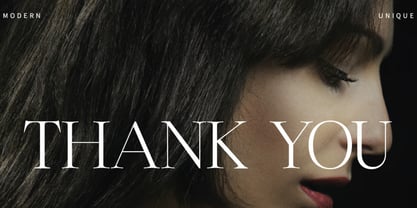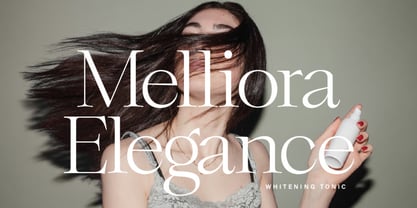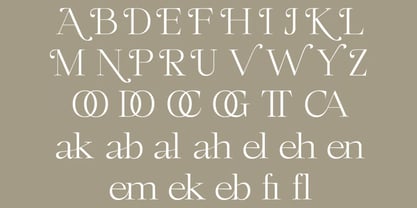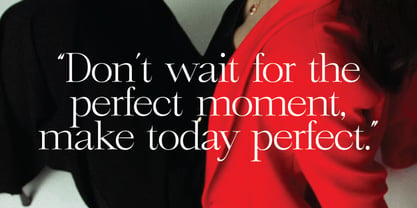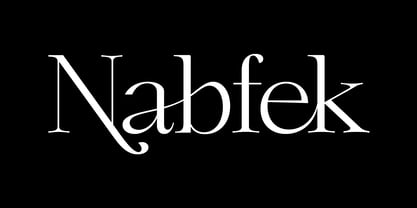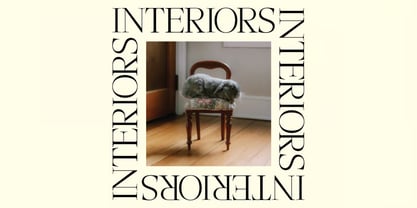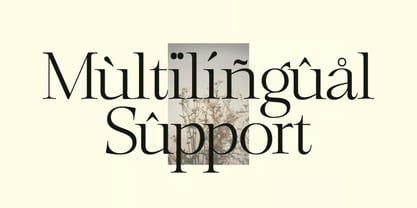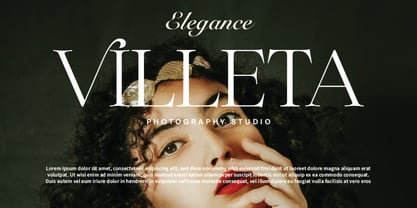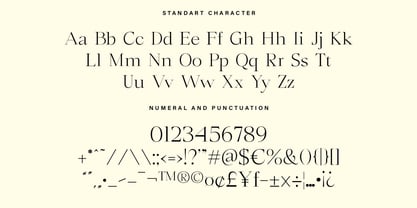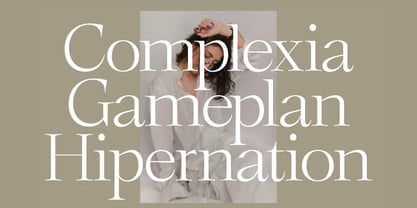
Nabfek
Nabfek is a modern display font crafted to bring style, versatility, and visual impact to your creative projects. Designed with clean letterforms and a contemporary aesthetic, Nabfek offers the perfect balance of readability and character, making it an excellent choice for designers looking to create eye-catching and professional typography.
Whether you're working on branding, logos, posters, packaging, social media graphics, website headers, editorial layouts, advertising campaigns, or promotional materials, Nabfek provides a strong visual presence that helps your designs stand out. Its modern structure and refined details make it suitable for both creative and commercial applications.
From bold headlines to sophisticated branding projects, Nabfek delivers a polished and memorable look that enhances every design with confidence and style.
✿ Key Features:
• Modern Display Font: Contemporary letterforms designed for impactful typography.
• Uppercase & Lowercase Characters: Complete alphabet for flexible design use.
• Numerals & Punctuation: Essential characters for professional projects.
• Clean & Balanced Design: Optimized for readability and visual appeal.
• Versatile Typography: Suitable for a wide range of print and digital applications.
• Professional Quality: Carefully crafted for consistent and polished results.
✿ Perfect For:
• Branding & Logo Design: Create memorable and modern brand identities.
• Posters & Advertising: Design bold headlines and attention-grabbing visuals.
• Editorial & Magazine Layouts: Perfect for titles, covers, and feature content.
• Packaging & Product Labels: Add a professional touch to product presentations.
• Social Media Graphics: Create engaging content that stands out online.
• Website Headers & Digital Projects: Enhance digital branding with contemporary typography.
• Creative Marketing Materials: Ideal for brochures, presentations, and campaigns.
Elevate your creative work with Nabfek—a modern display font designed for branding, logos, advertising, packaging, editorials, social media graphics, and contemporary design projects. Create bold, professional, and memorable typography with ease.